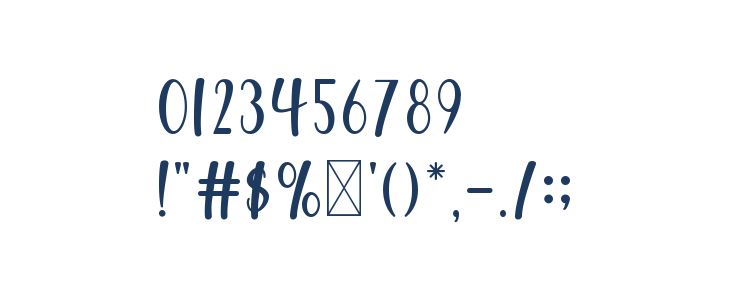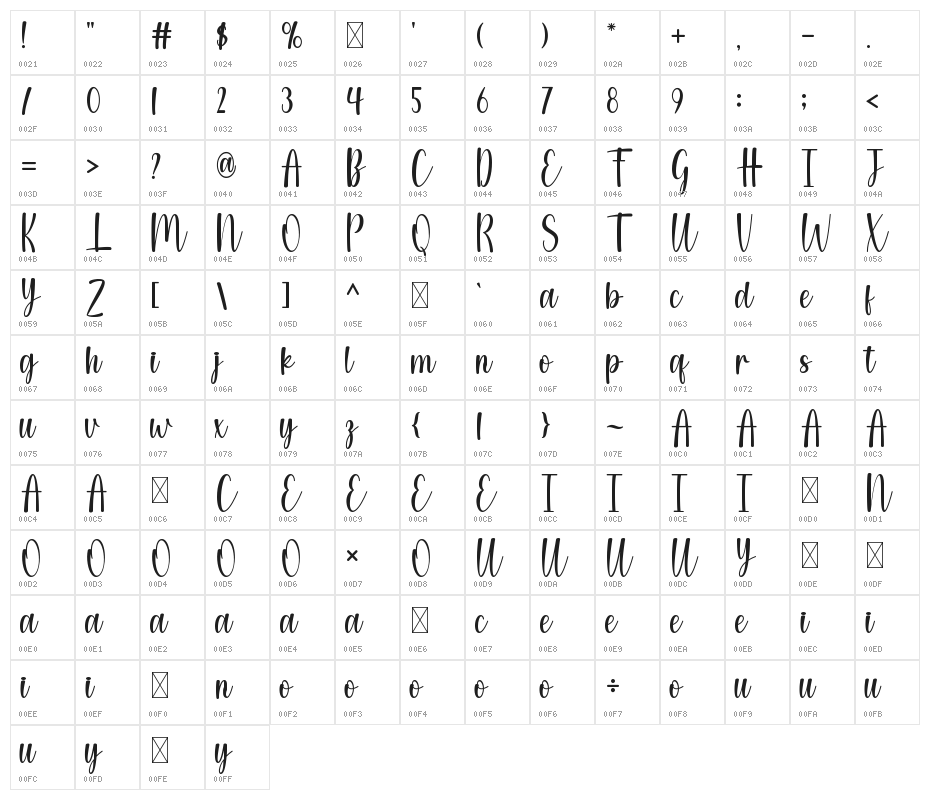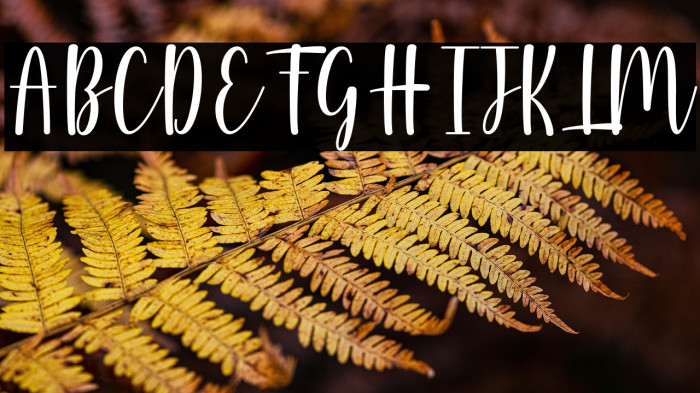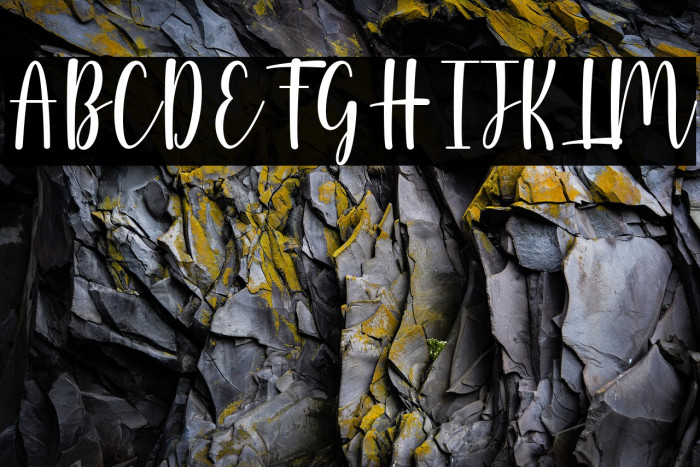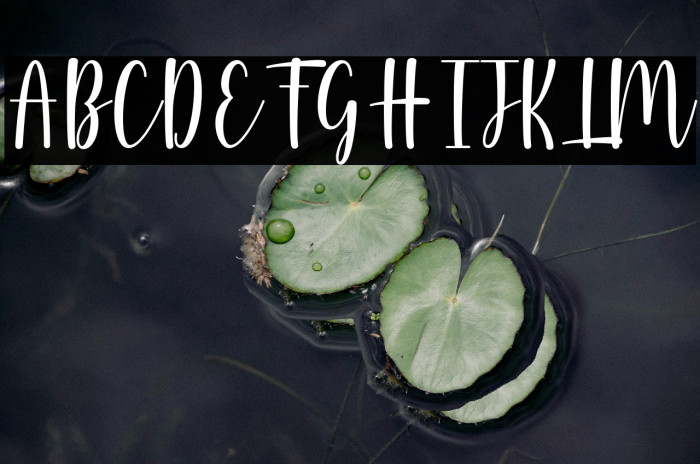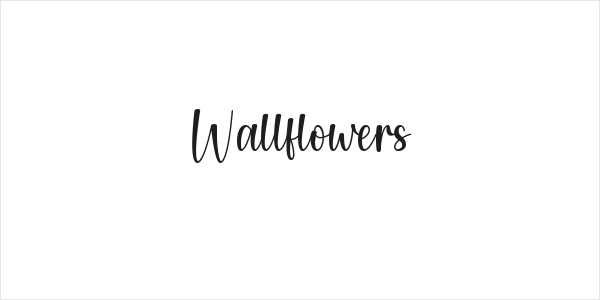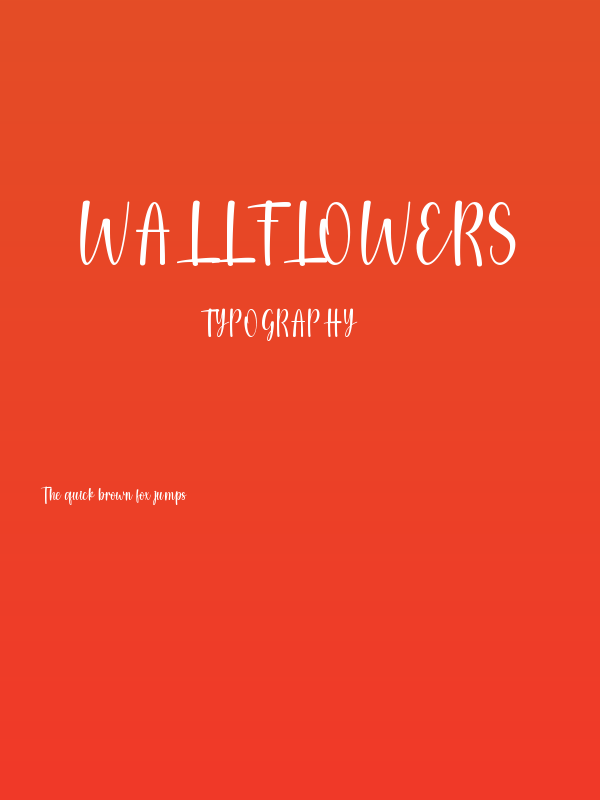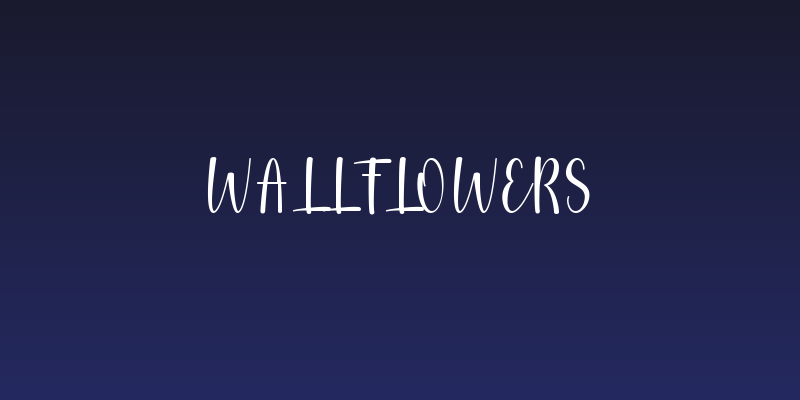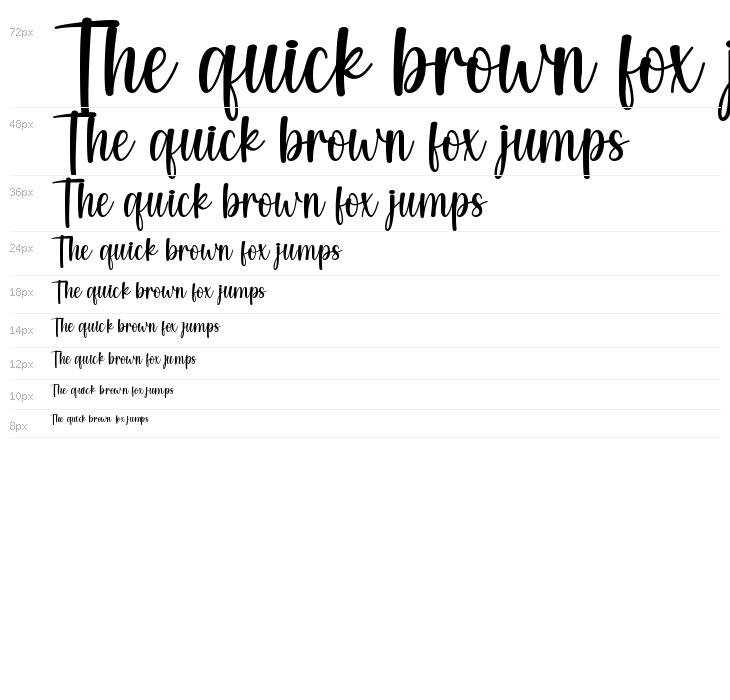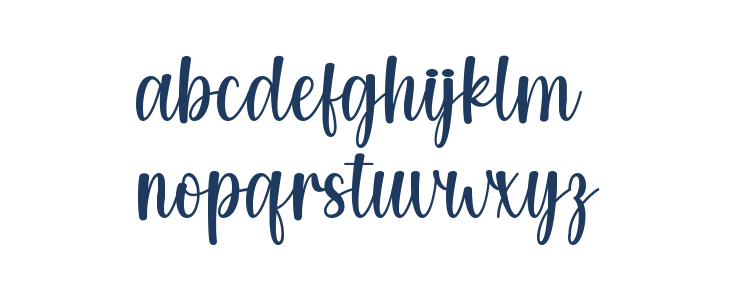
Wallflowers Font
Wallflowers Description
This font features a playful and artistic script style with a handwritten feel. The uppercase letters are tall and slightly narrow, with a mix of straight and curved lines that add a dynamic flow. Lowercase letters maintain a consistent style, with some letters having distinctive loops and swashes that enhance its decorative nature. The numbers are bold and clear, matching the overall aesthetic of the font. Special characters are creatively designed, maintaining the font's unique flair. This font exudes a sense of creativity and personal touch, making it ideal for projects that require a friendly and approachable look.
| Proposed Projects | Ideal for greeting cards, invitations, personal branding, and creative posters. |